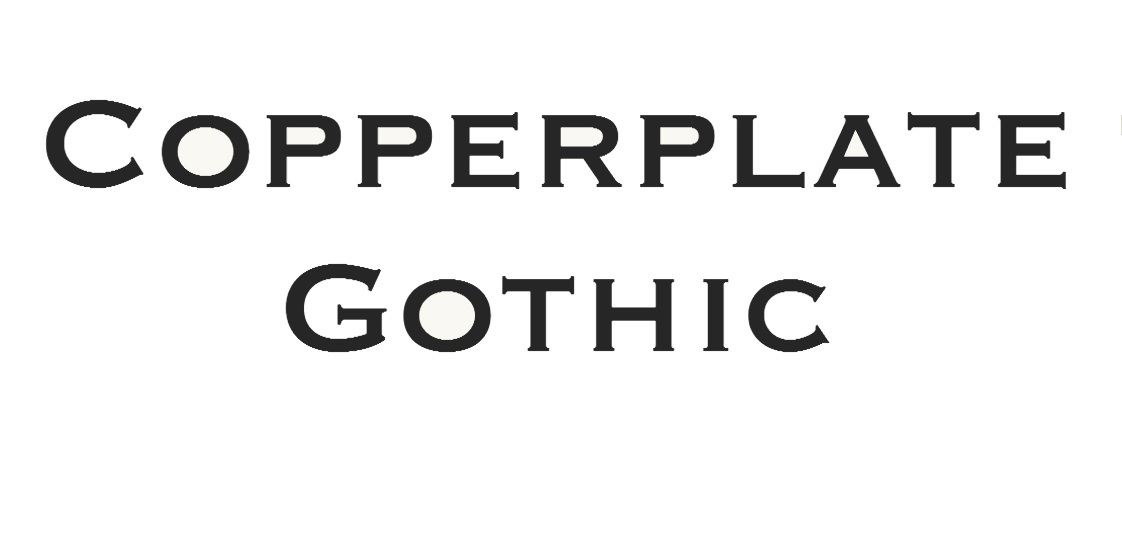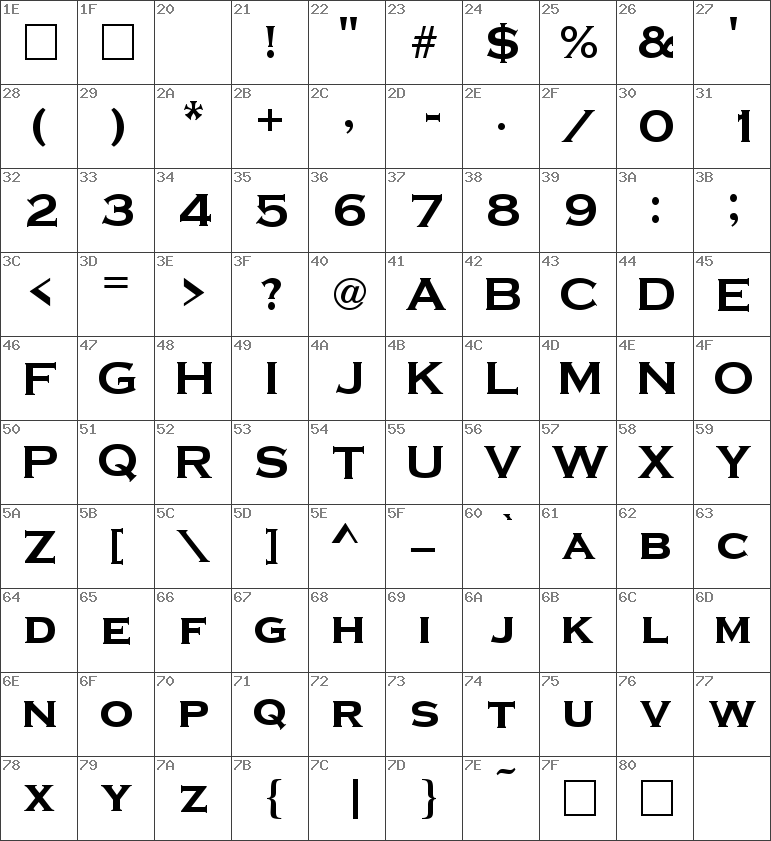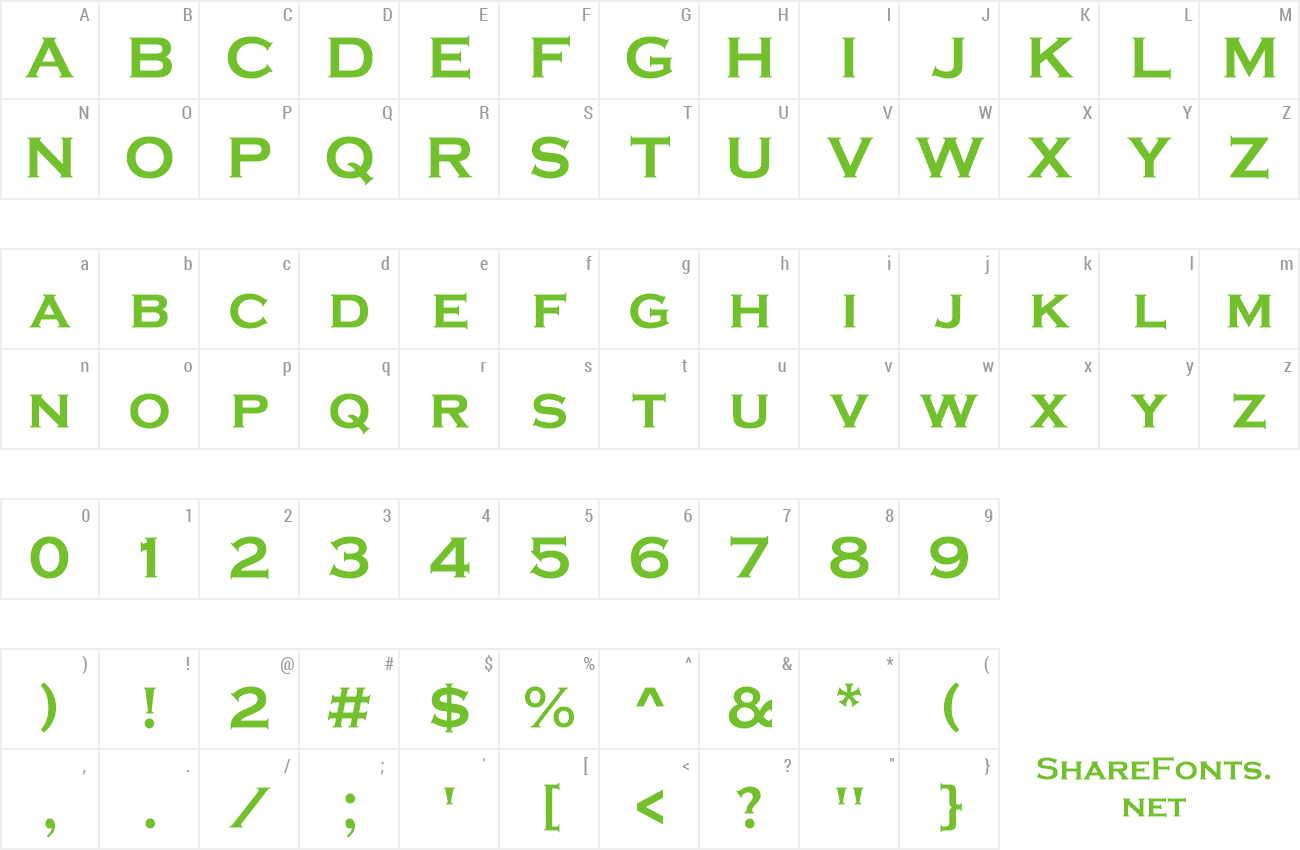
Copperplate Bold Font
Copperplate Bold Font - This font features strong, bold. A bold, classic serif font with strong, authoritative characters.
A bold, classic serif font with strong, authoritative characters. This font features strong, bold.
This font features strong, bold. A bold, classic serif font with strong, authoritative characters.
A bold, classic serif font with strong, authoritative characters. This font features strong, bold.
This font features strong, bold. A bold, classic serif font with strong, authoritative characters.
A bold, classic serif font with strong, authoritative characters. This font features strong, bold.
This Font Features Strong, Bold.
A bold, classic serif font with strong, authoritative characters.